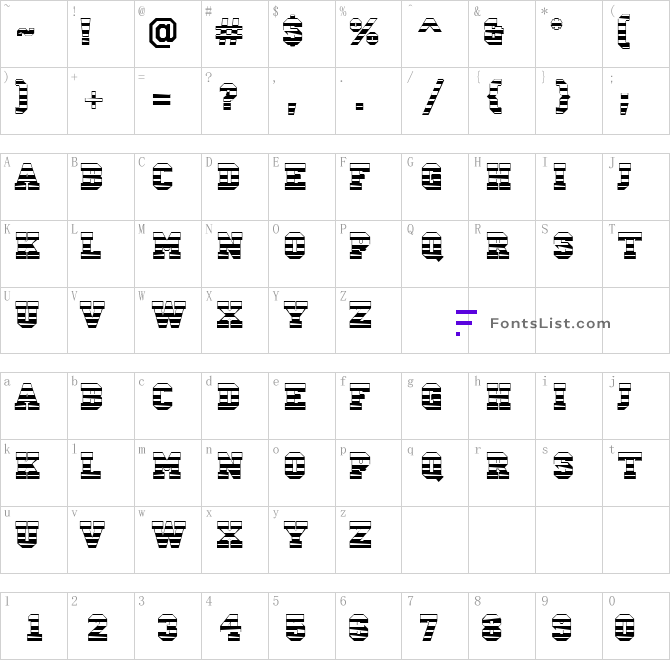
- Font Name:a_CampusMr
a_CampusMr-Bold.ttf is a very beautiful artistic font, a_CampusMr-Bold.ttf is widely used in the design and printing of various books and pictures,a_CampusMr-Bold.ttf has a strong visual impact,a_CampusMr-Bold.ttf is a commonly used font in newspapers, magazines and books, and is used in posters, e-commerce Poster design, store design, logo design, font design and other fields.a_CampusMr-Bold.